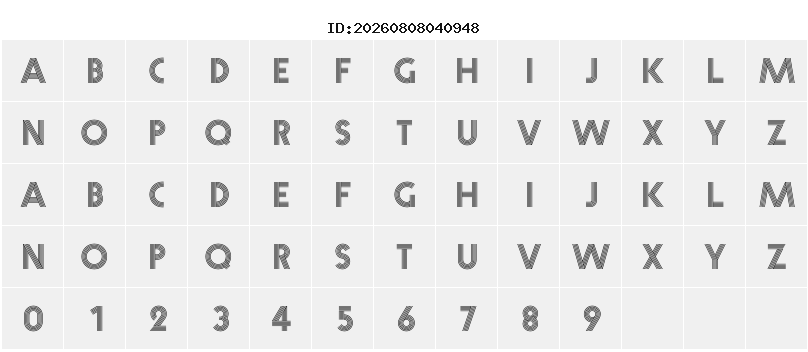
Prisma Preview
• Font Name: Prisma
• Designer: Entworfen von Rudolf Koch
• Description: Prisma Versalschrift
About Prisma.otf
Prisma.otf is a modern, elegant sans-serif font designed for ultimate readability and visual harmony. Perfect for branding, headlines, web design, and print materials.